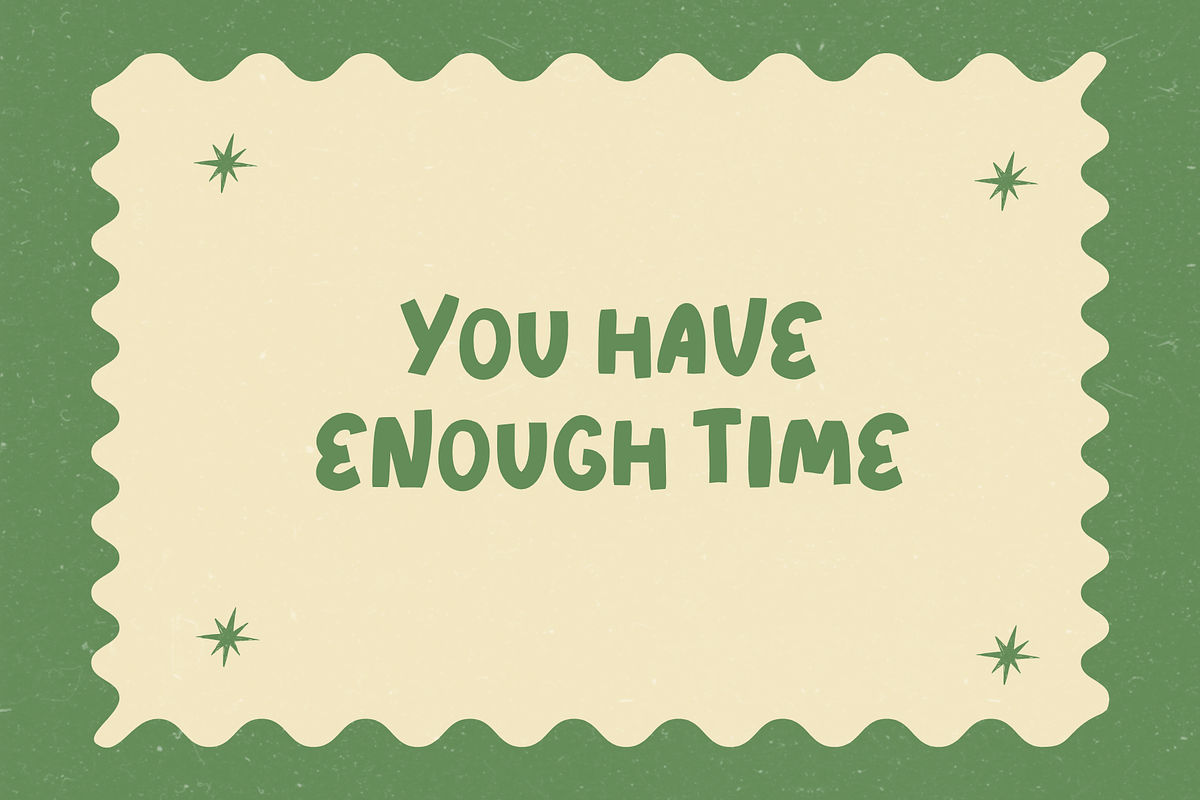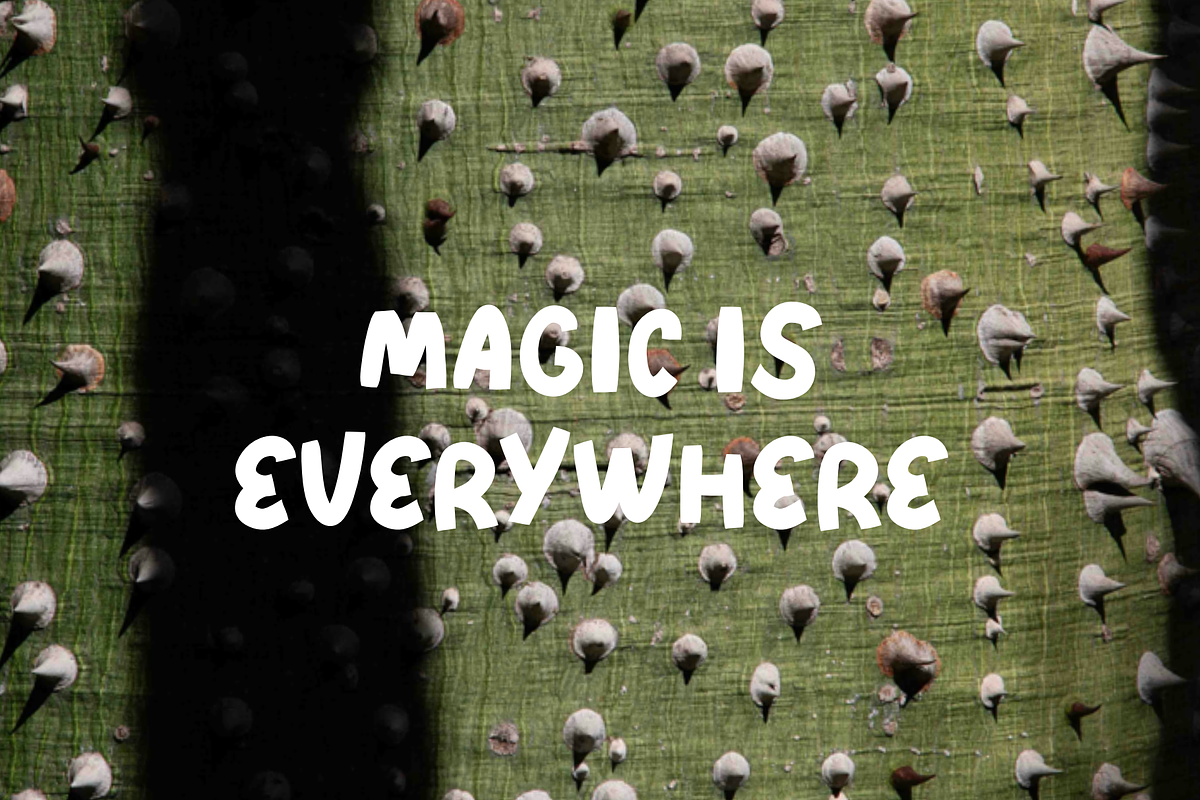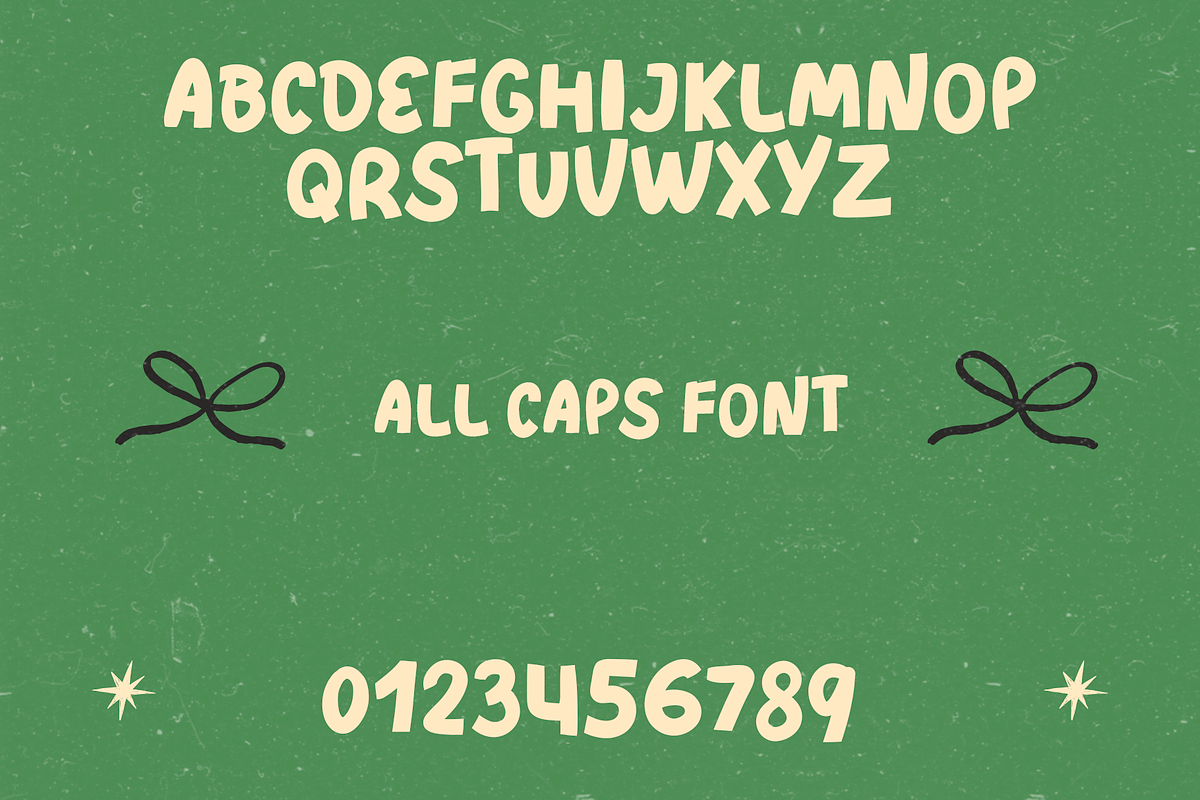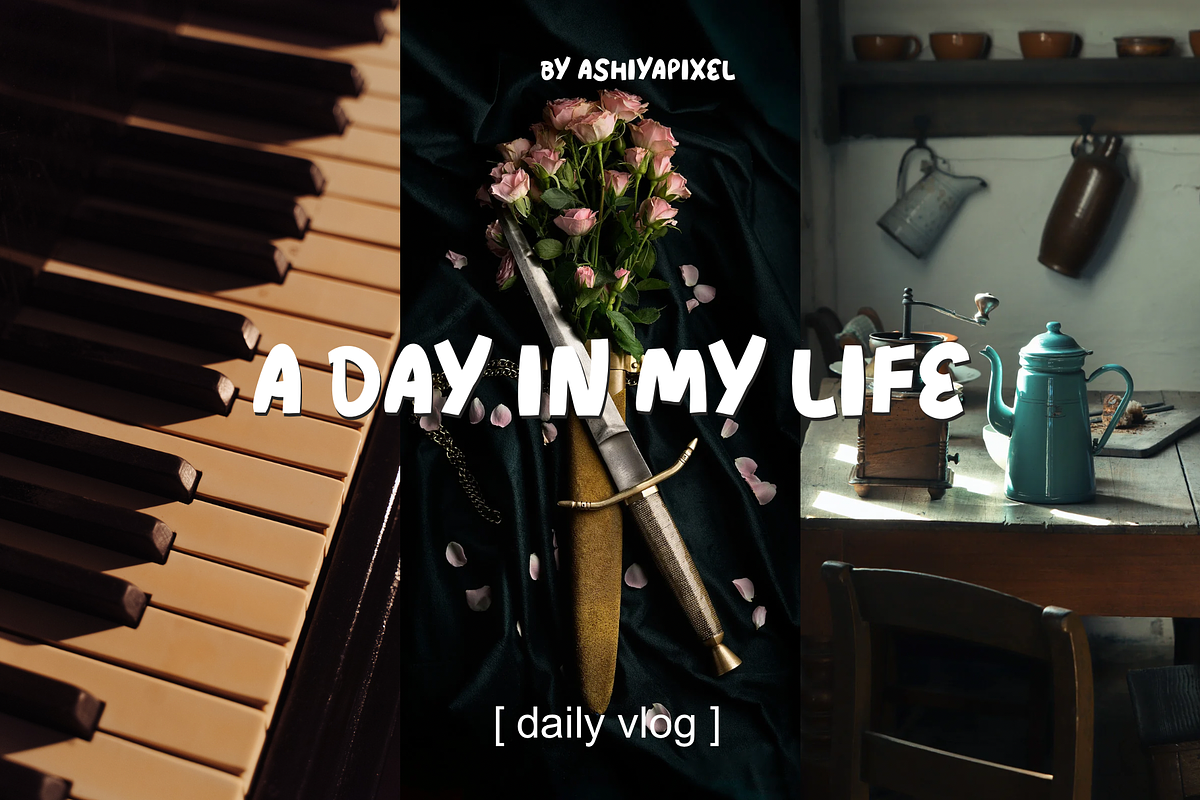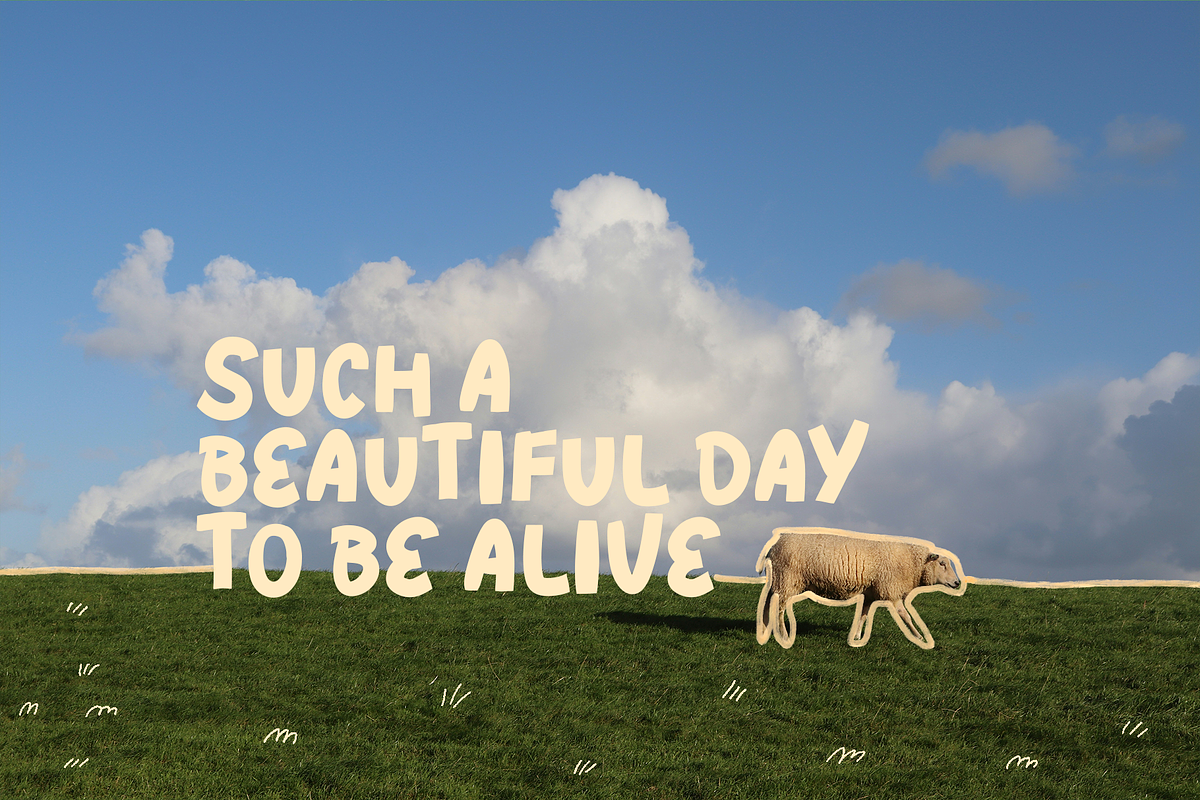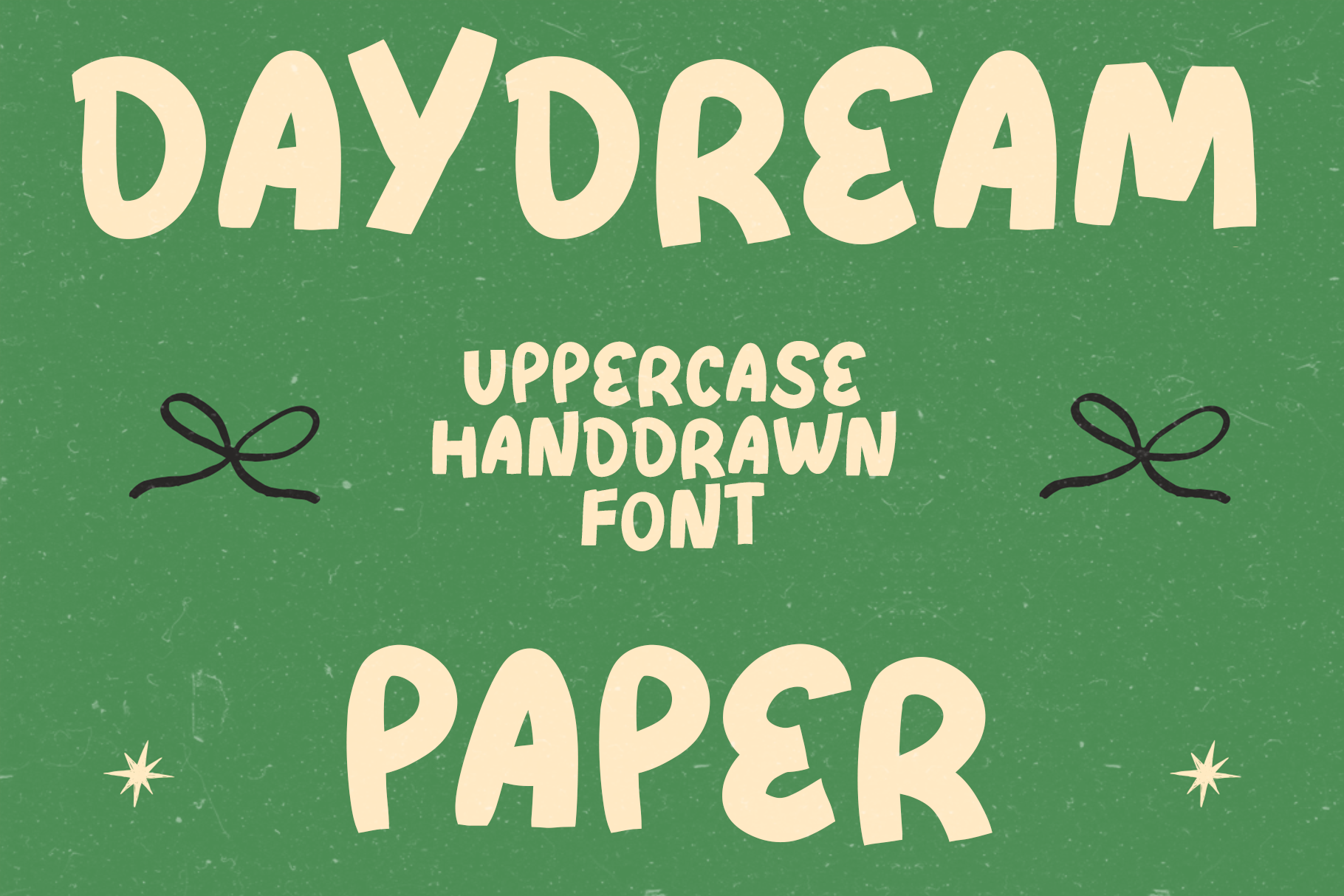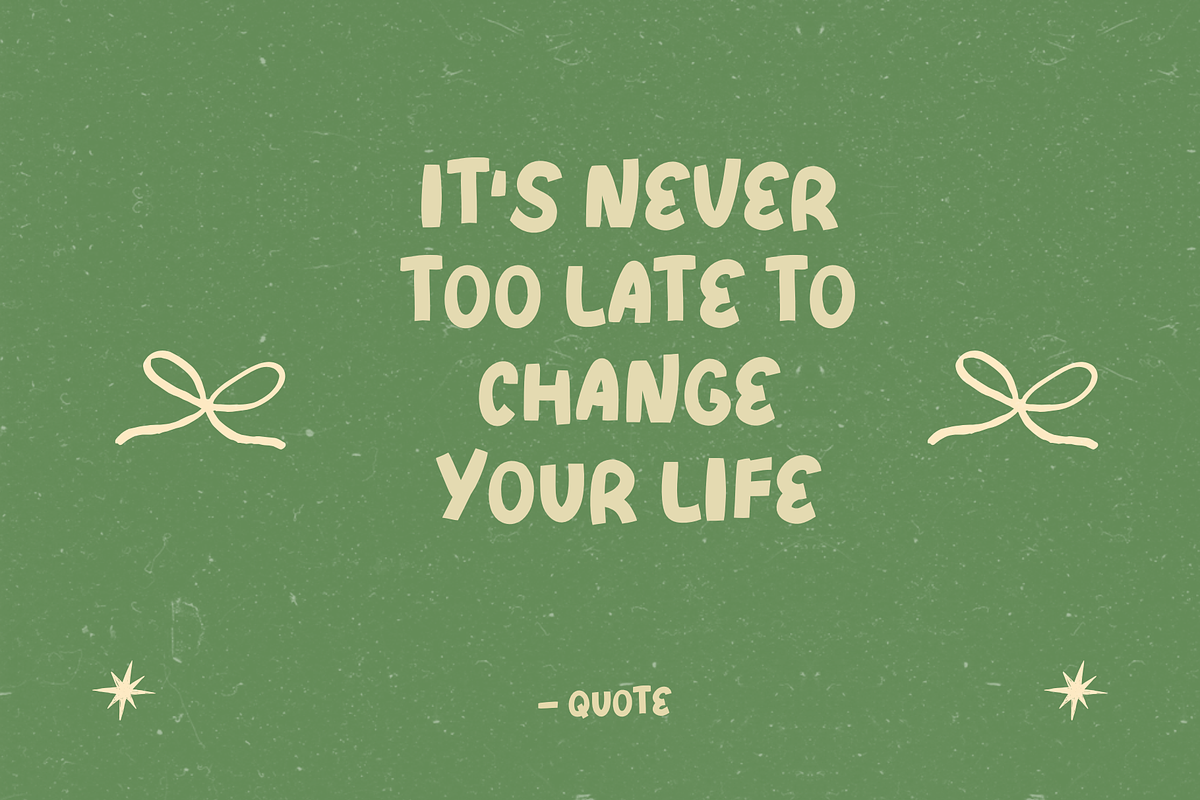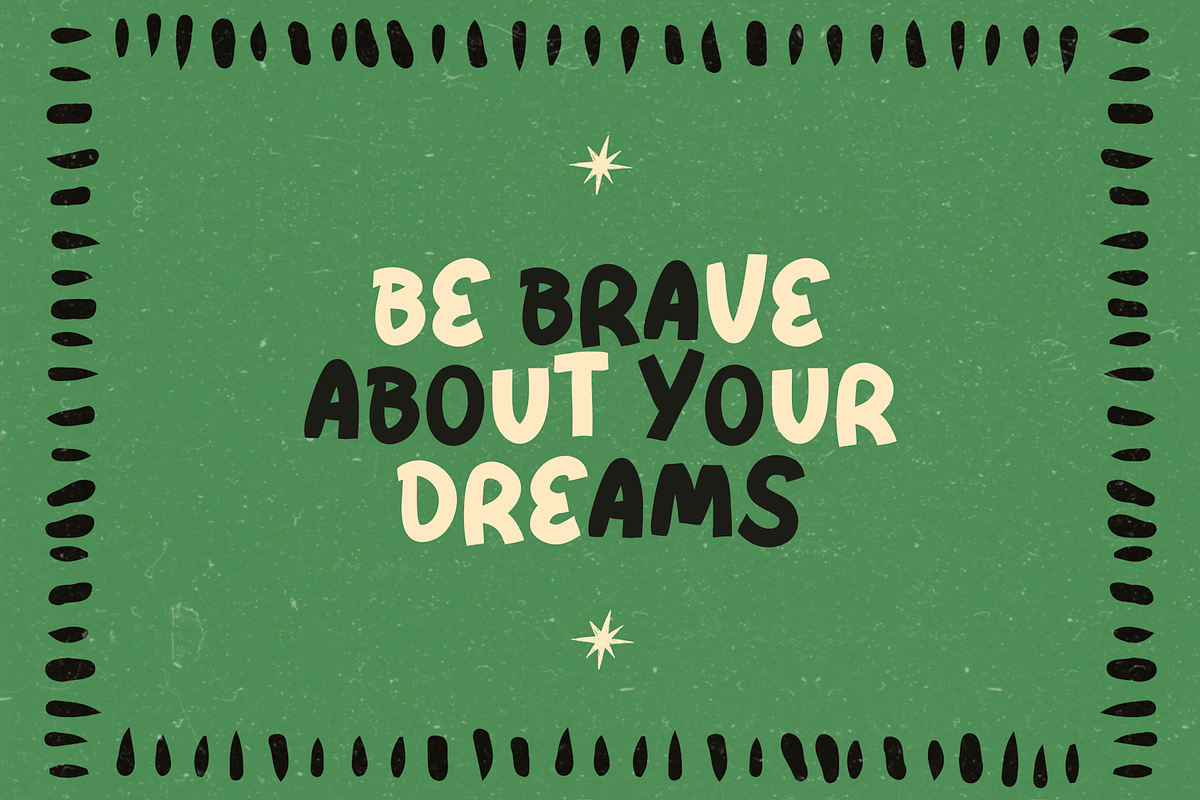
DAYDREAM PAPER - font
BOLD, HANDDRAWN, PLAYFUL FONT
Headlines & Hero Images: Make your message unmissable.
Packaging Design: Great for snacks, apparel, or indie beauty brands.
Social Media: Stand out in the feed with a stop-motion, collage aesthetic.
Merchandise: Bold enough for screen printing on tees and totes.
Best for: Children’s books, food packaging, or upbeat social media graphics.